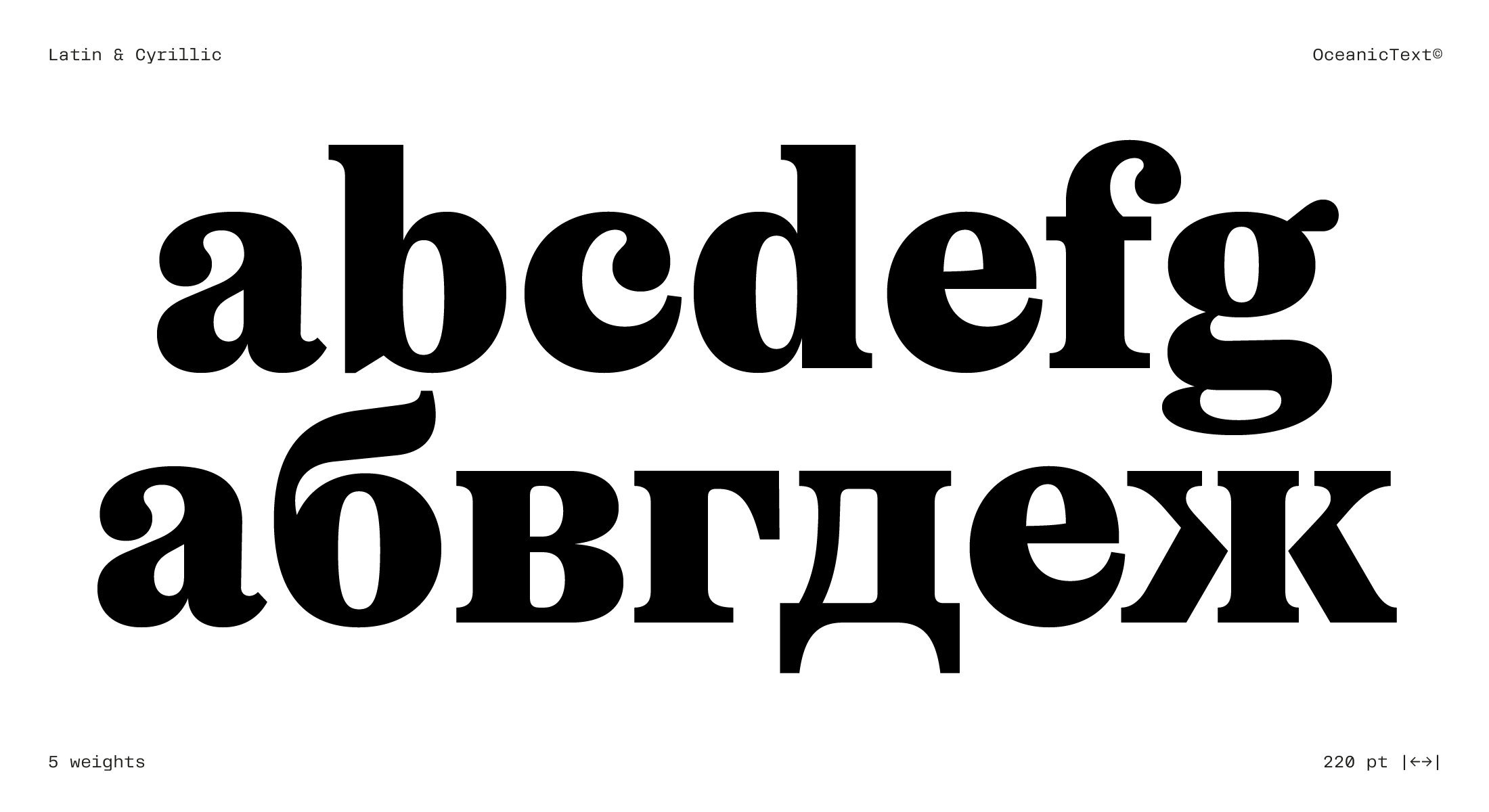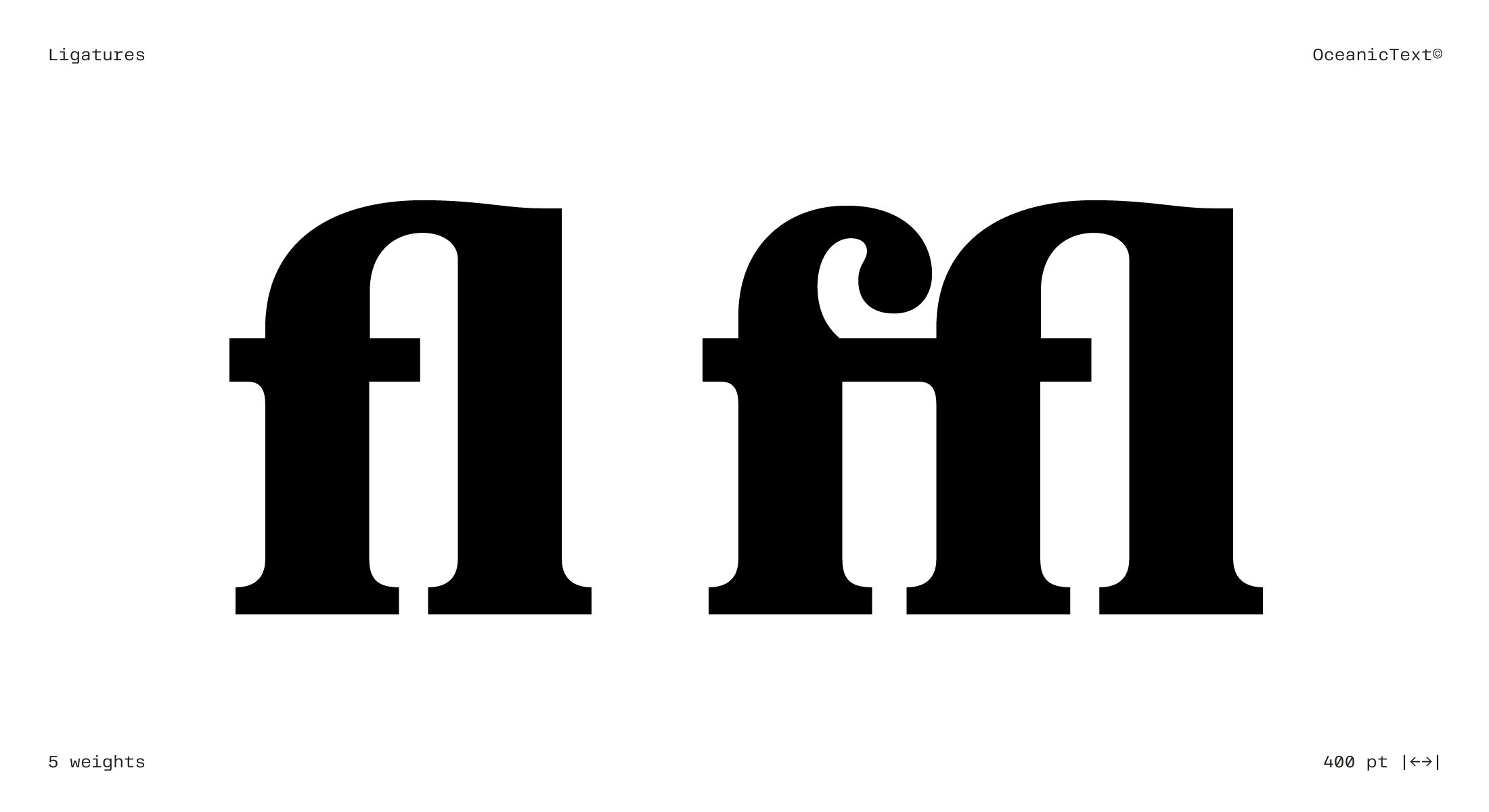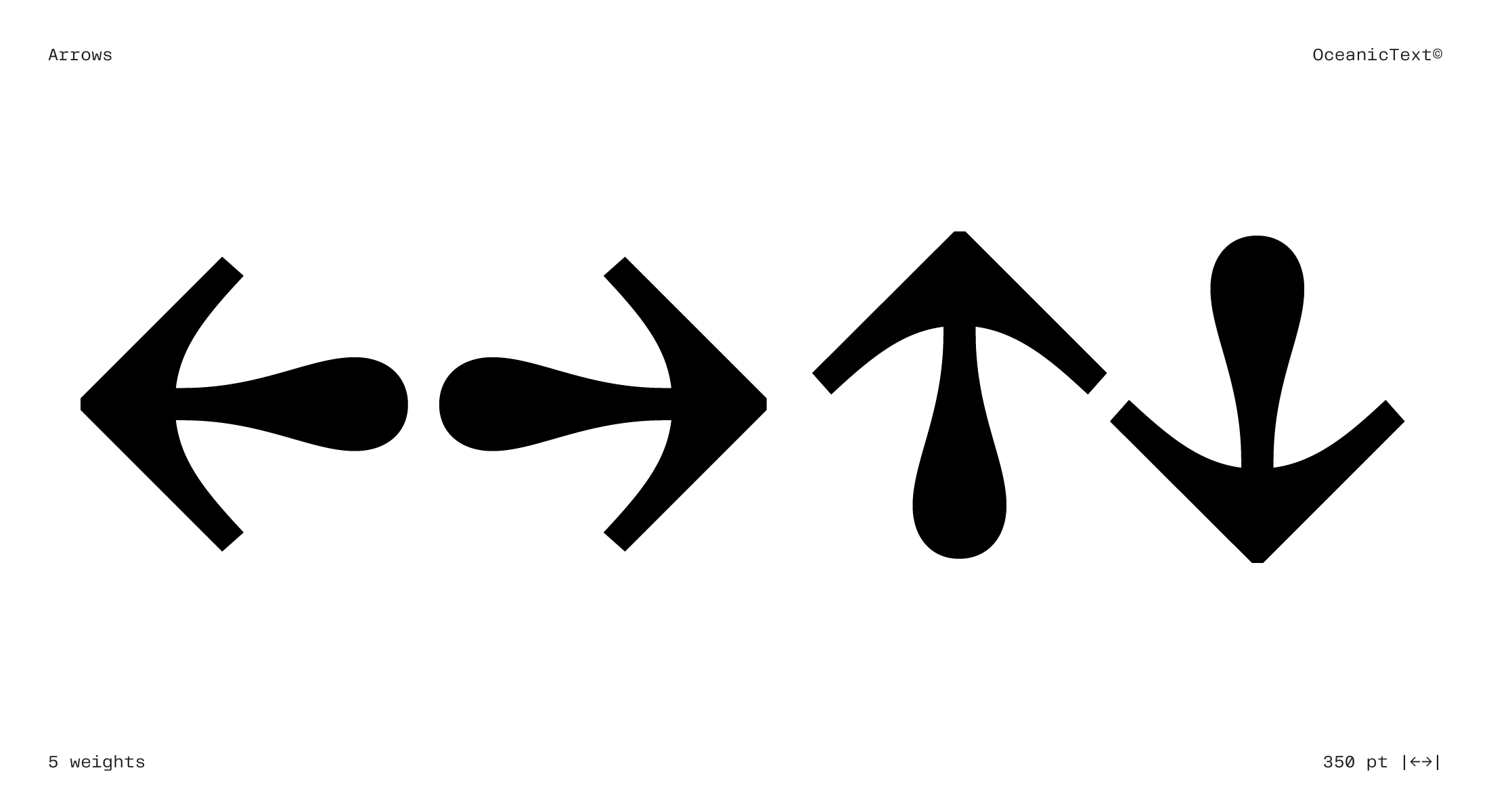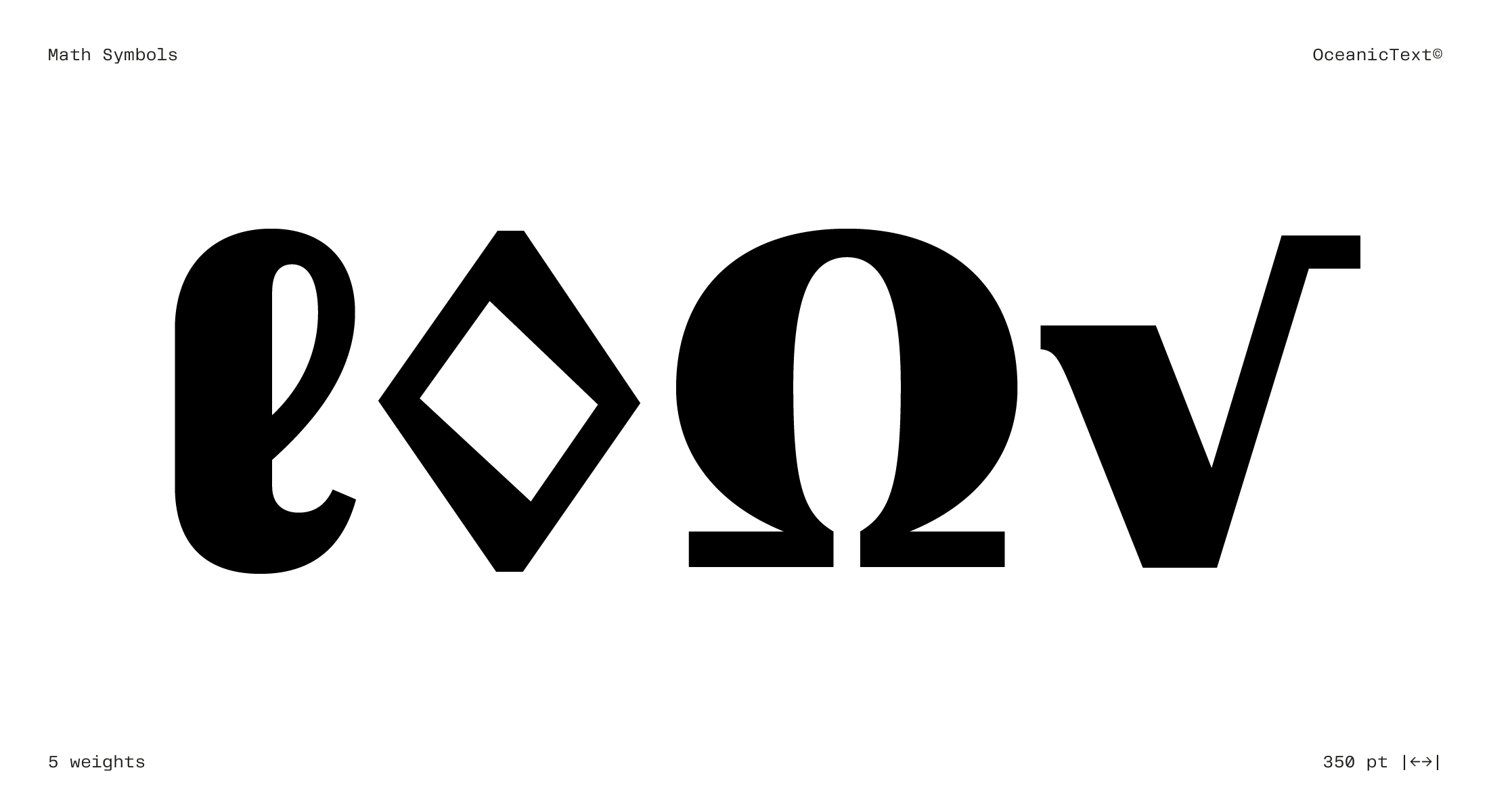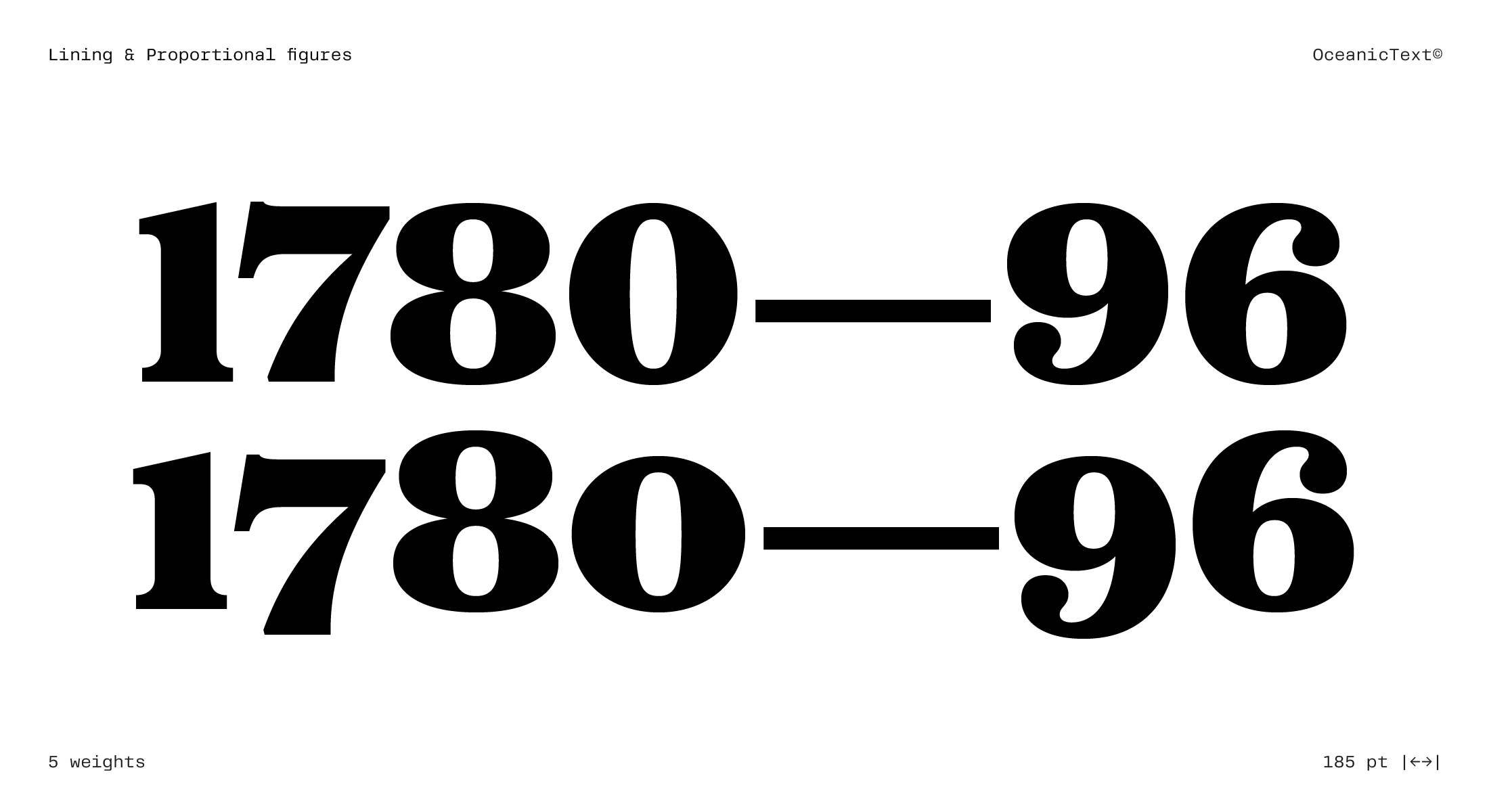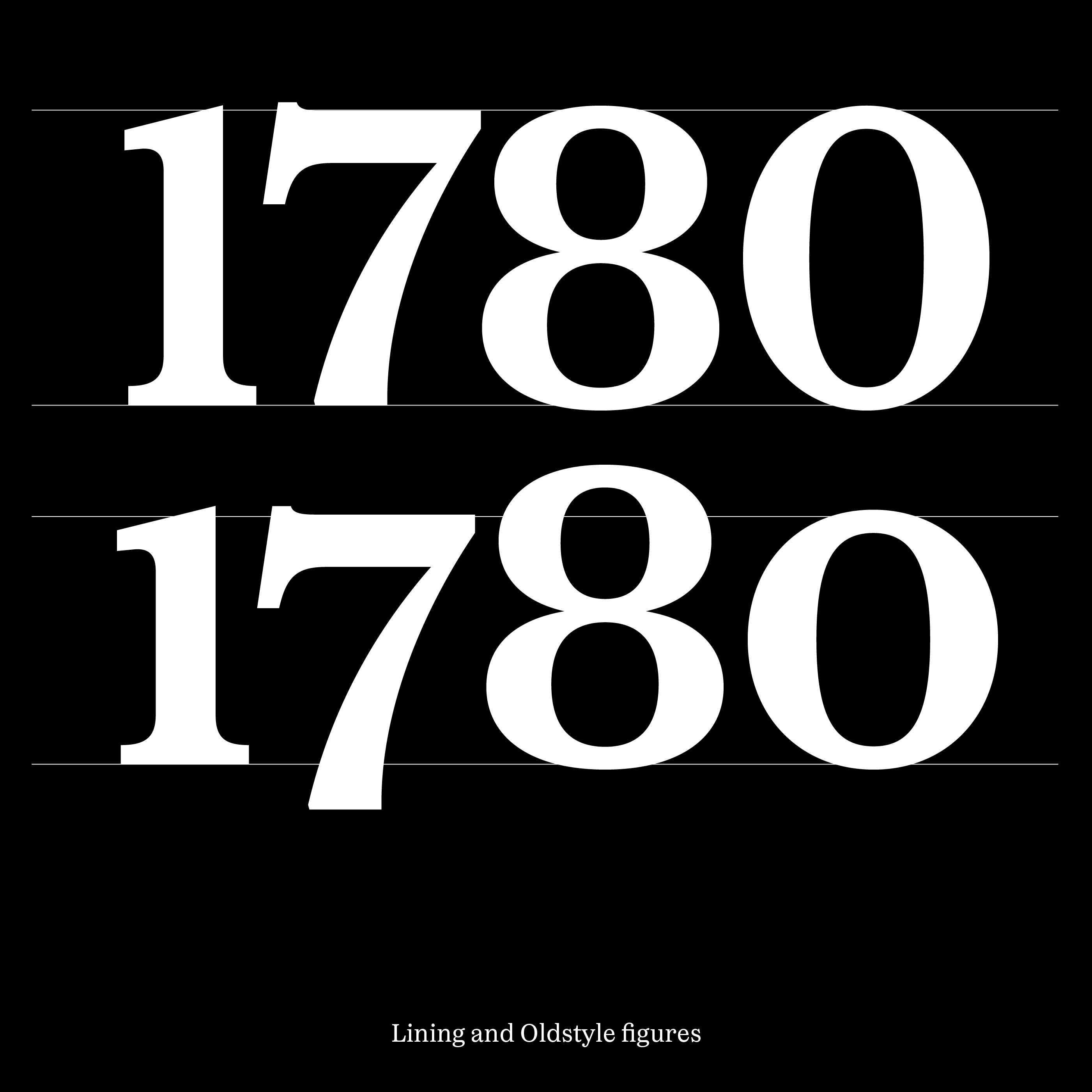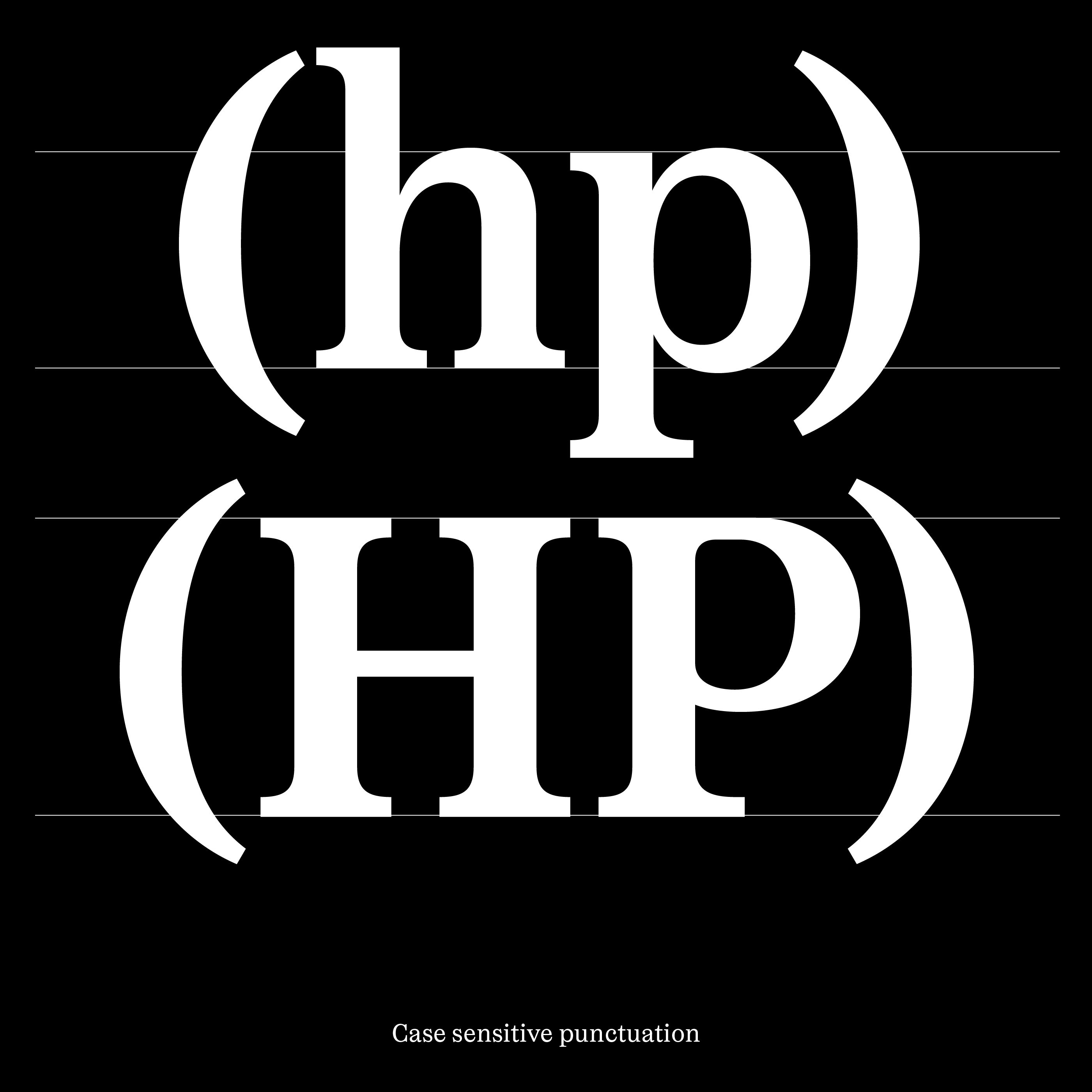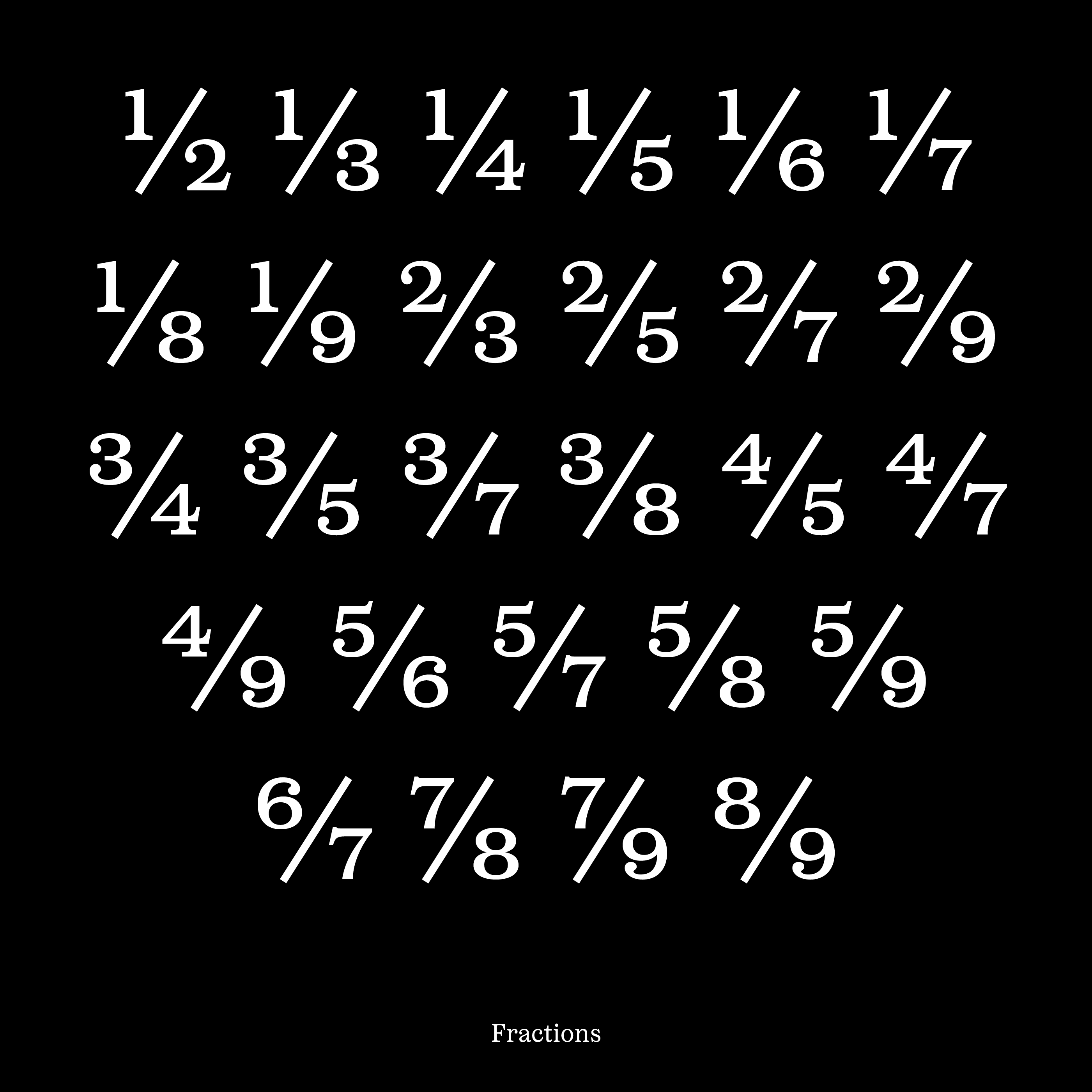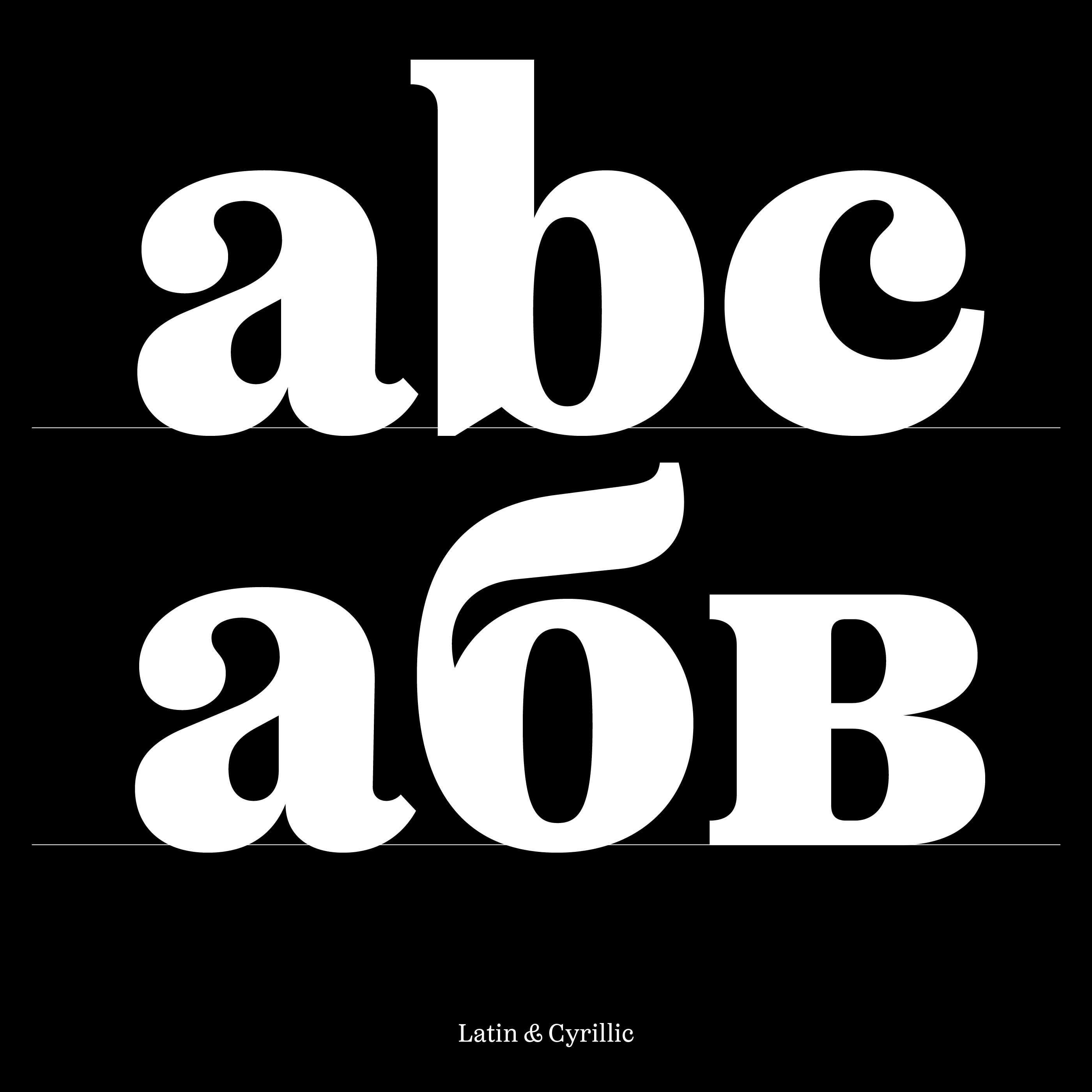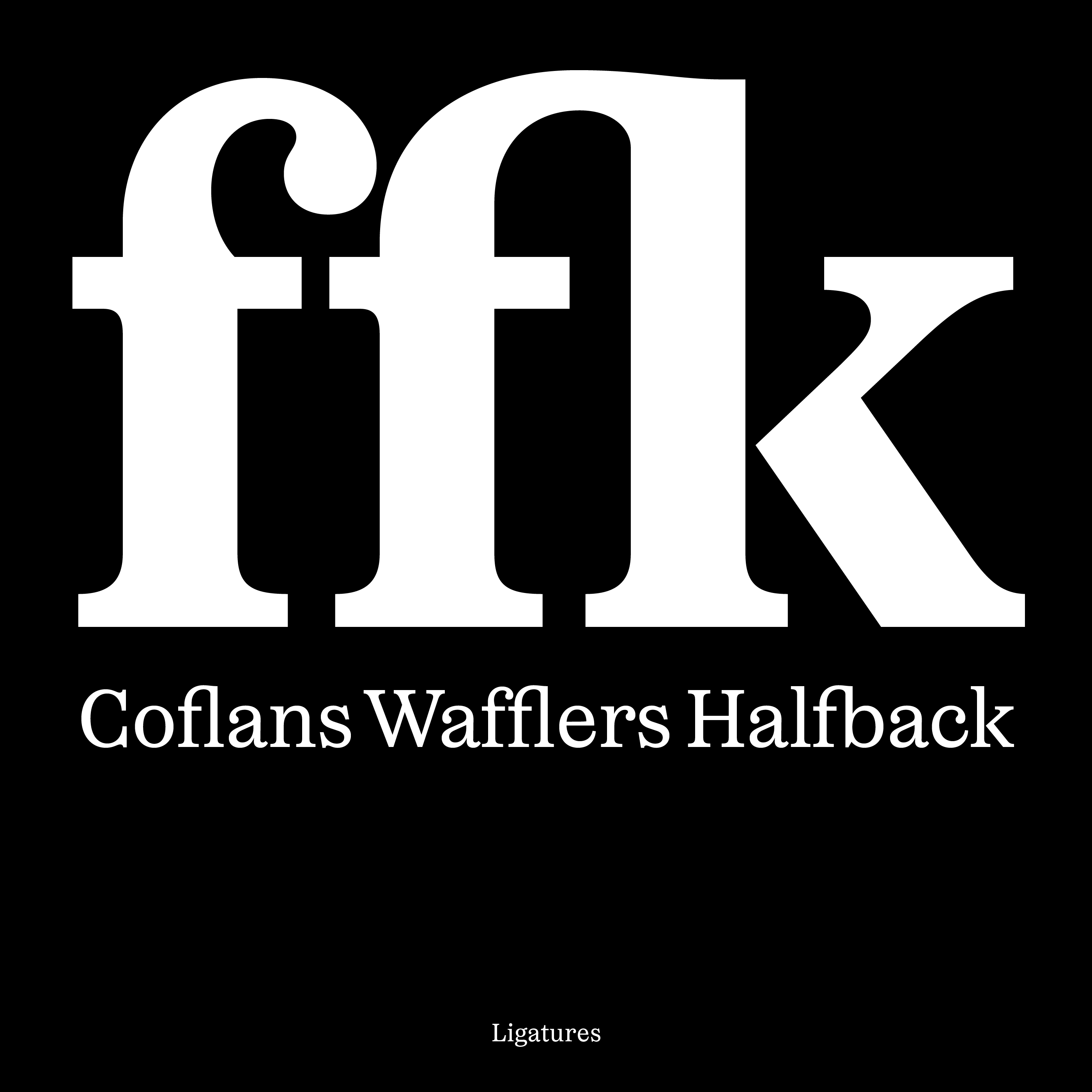
Oceanic Text Regular
Oceanic, a quick story
Oceanic draws inspiration from the 18 and 19th century fat faces with upright contrast like Bodoni, Canon or Scotch Romans and adds odd and quirky details, such as the letters ‘c’ or ‘e’ that look like prehistoric oceanic creatures, as well as capital R and K that are designed to stand out and make you feel a little uncomfortable. Display is at the core of the family with its vibrant personality and quirks. The text family is sober, has reduced contrast and is slightly more condensed, designed to work for small sizes and running text. Oceanic brings neutrality, elegance and personality to design projects without drawing too much attention and becoming boring too fast.
Scripts: Extended Latin, Cyrillic